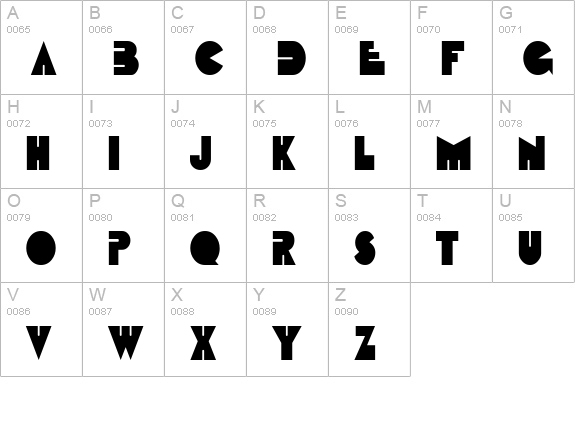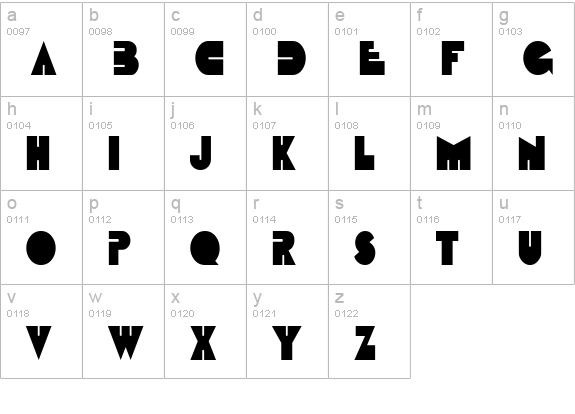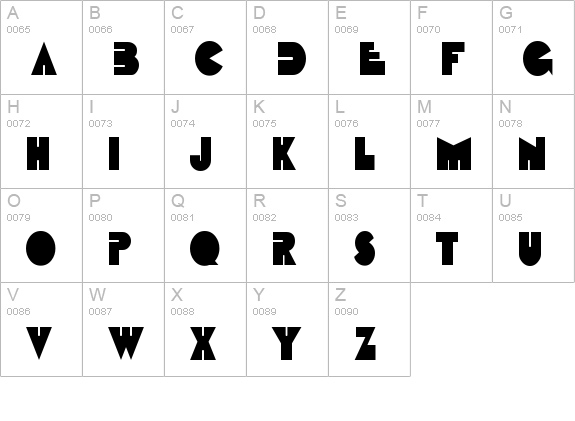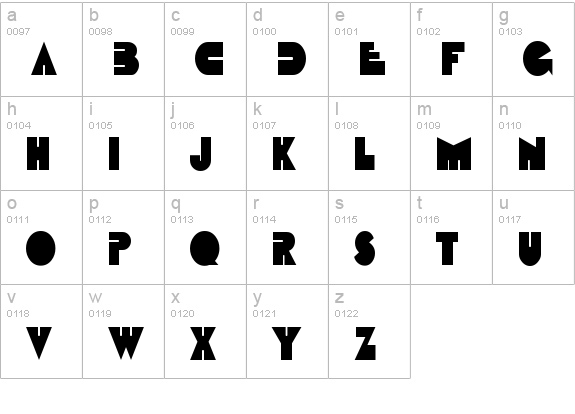
Fatso Condensed Normal is the standard, neutral, condensed-width variant in the Fatso typeface family \xE2\x80\x94 well suited to general body text, paragraphs, and standard typographic work.
Fatso Condensed Normal font is a sleek and modern typeface that exudes confidence and style. Its condensed design makes it perfect for creating eye-catching headings and titles that demand attention. The bold strokes and rounded edges of each letter give this font a friendly and approachable feel, making it versatile for a wide range of design projects. One of the best things about Fatso Condensed Normal font is that it is available for free download at FontsMarket.com. This means that you can easily incorporate this stylish font into your designs without any additional cost. Whether you are working on a poster, branding, or web design project, Fatso Condensed Normal font is sure to elevate your creations and make them stand out. With its clean lines and modern aesthetic, Fatso Condensed Normal font is a must-have addition to any designer's toolkit. Download it for free today and unleash your creativity with this versatile and impactful typeface.